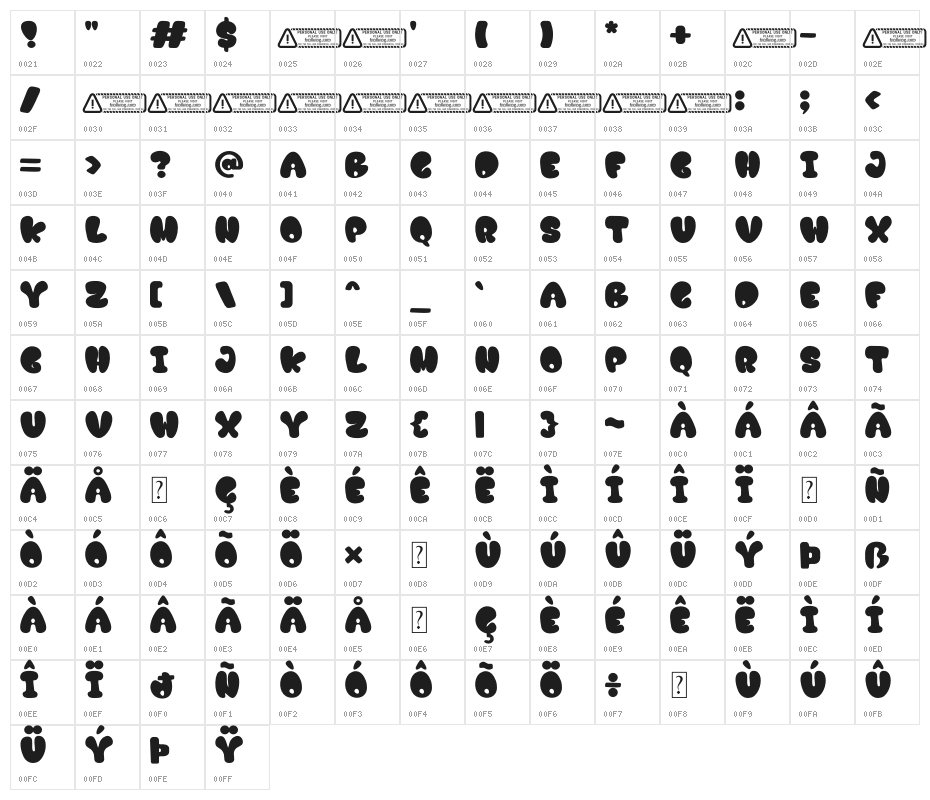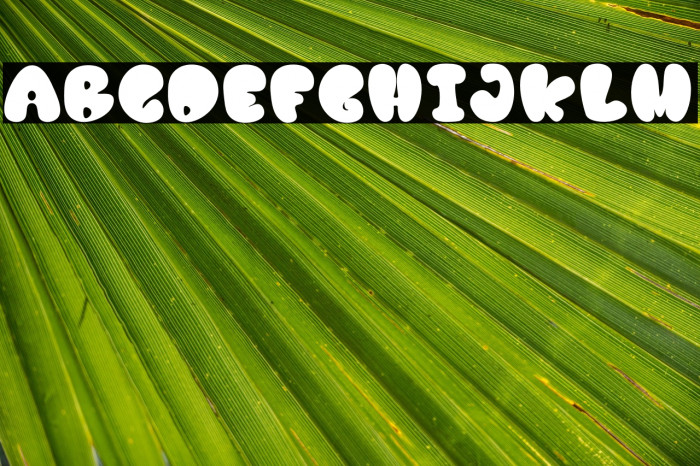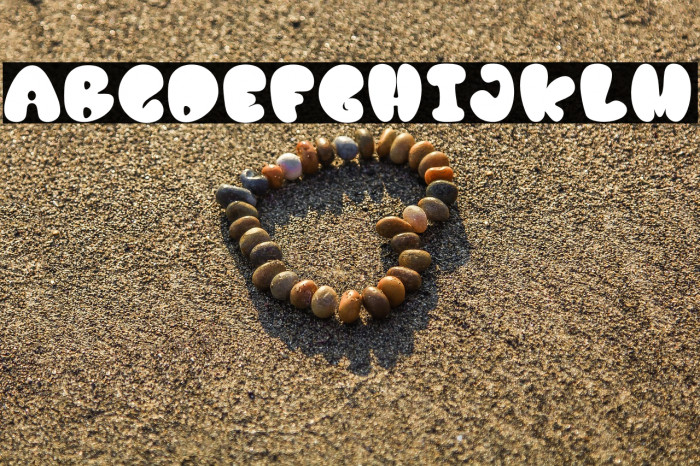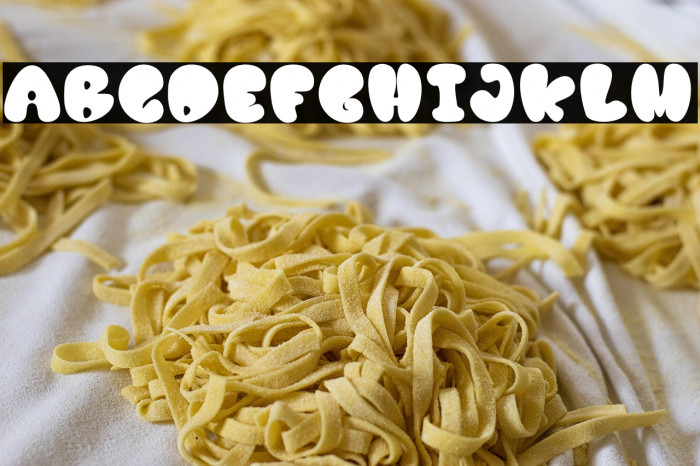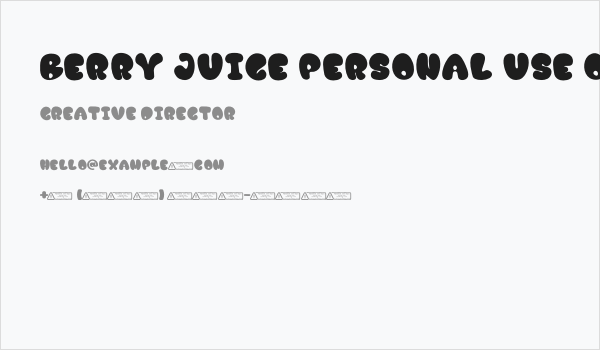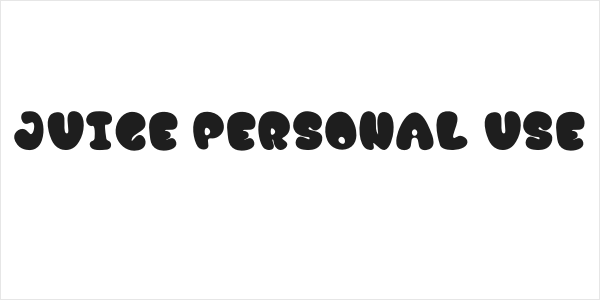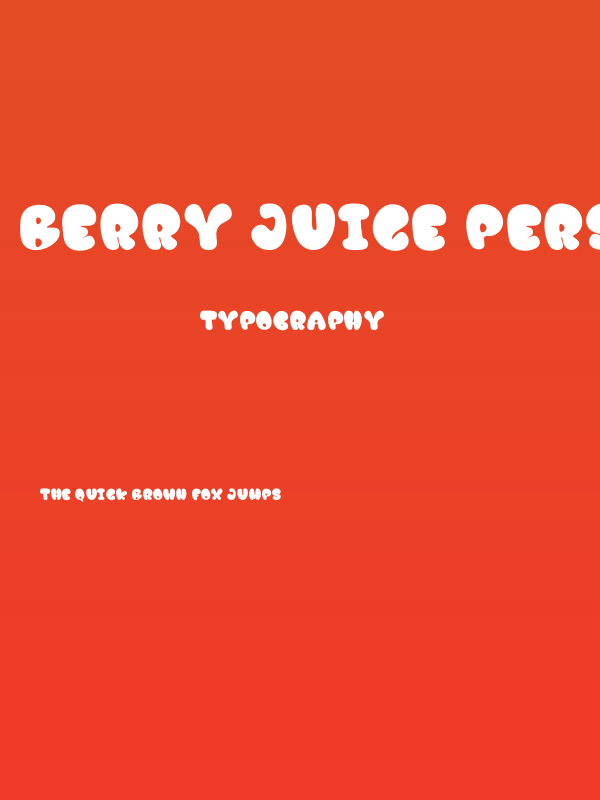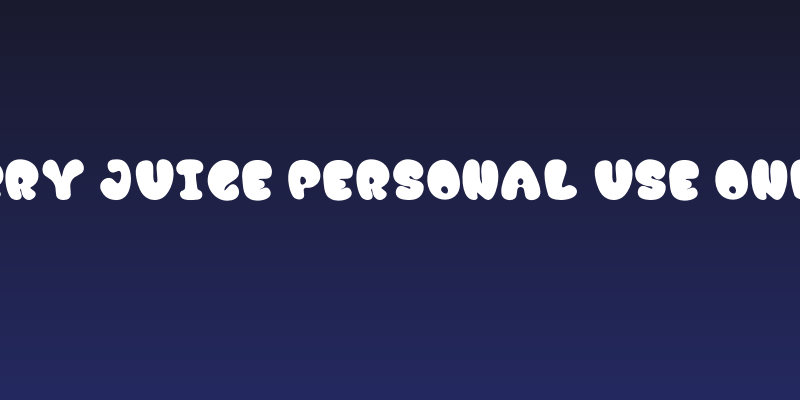
Berry Juice PERSONAL USE ONLY! Font
Berry Juice PERSONAL USE ONLY! Description
This playful and bold font features rounded, bubble-like characters that give off a fun and whimsical vibe. Each letter is thick and substantial, with a consistent stroke width that maintains a uniform appearance across the alphabet. The characters are slightly condensed, creating a compact look that is both eye-catching and easy to read. The font's unique style makes it ideal for projects that require a touch of creativity and flair. Its boldness ensures that it stands out in any design, making it perfect for attention-grabbing headlines or titles. The font includes both uppercase and lowercase letters, as well as a variety of special characters, providing versatility for different design needs.
| Proposed Projects | Ideal for children's books, playful branding, party invitations, and eye-catching posters. |